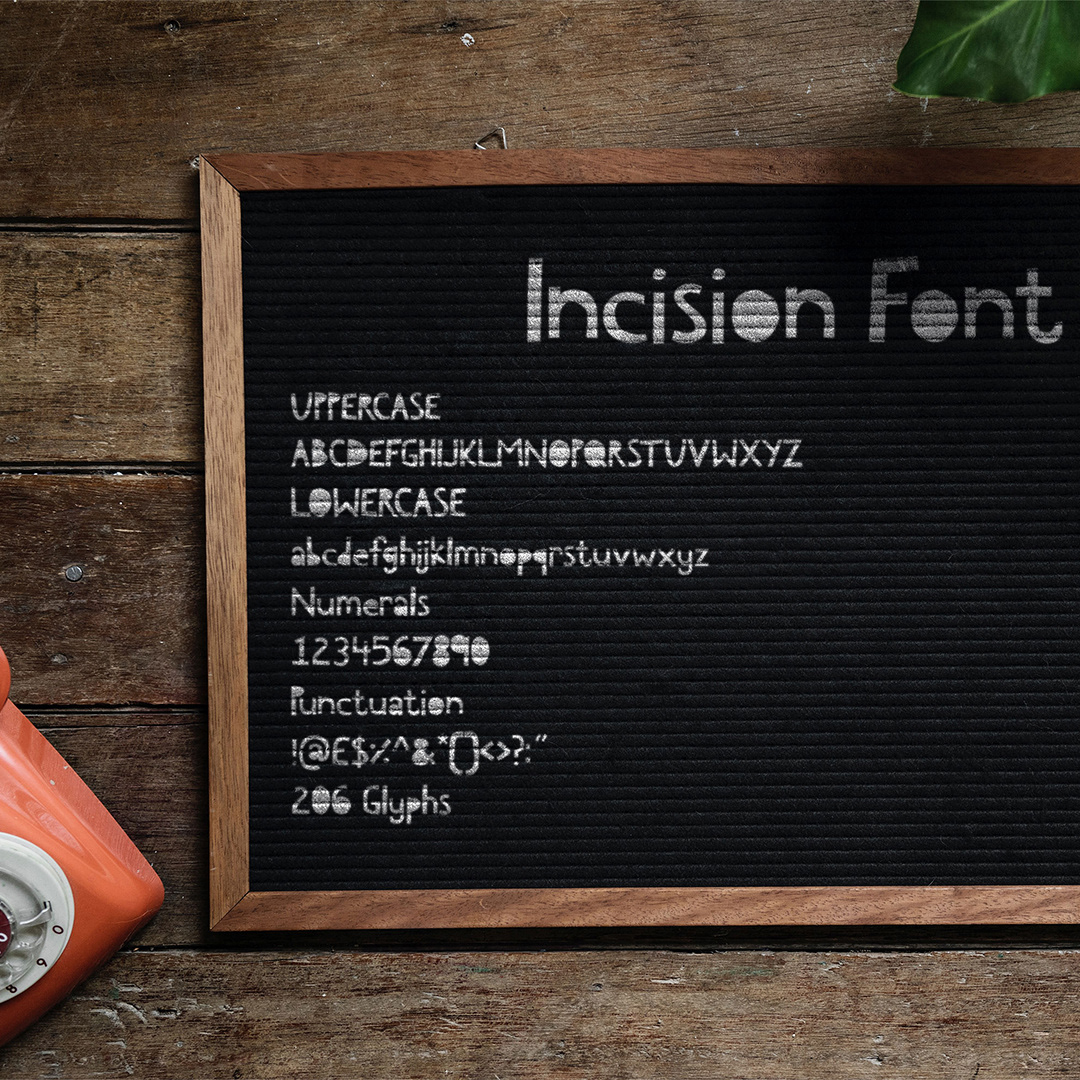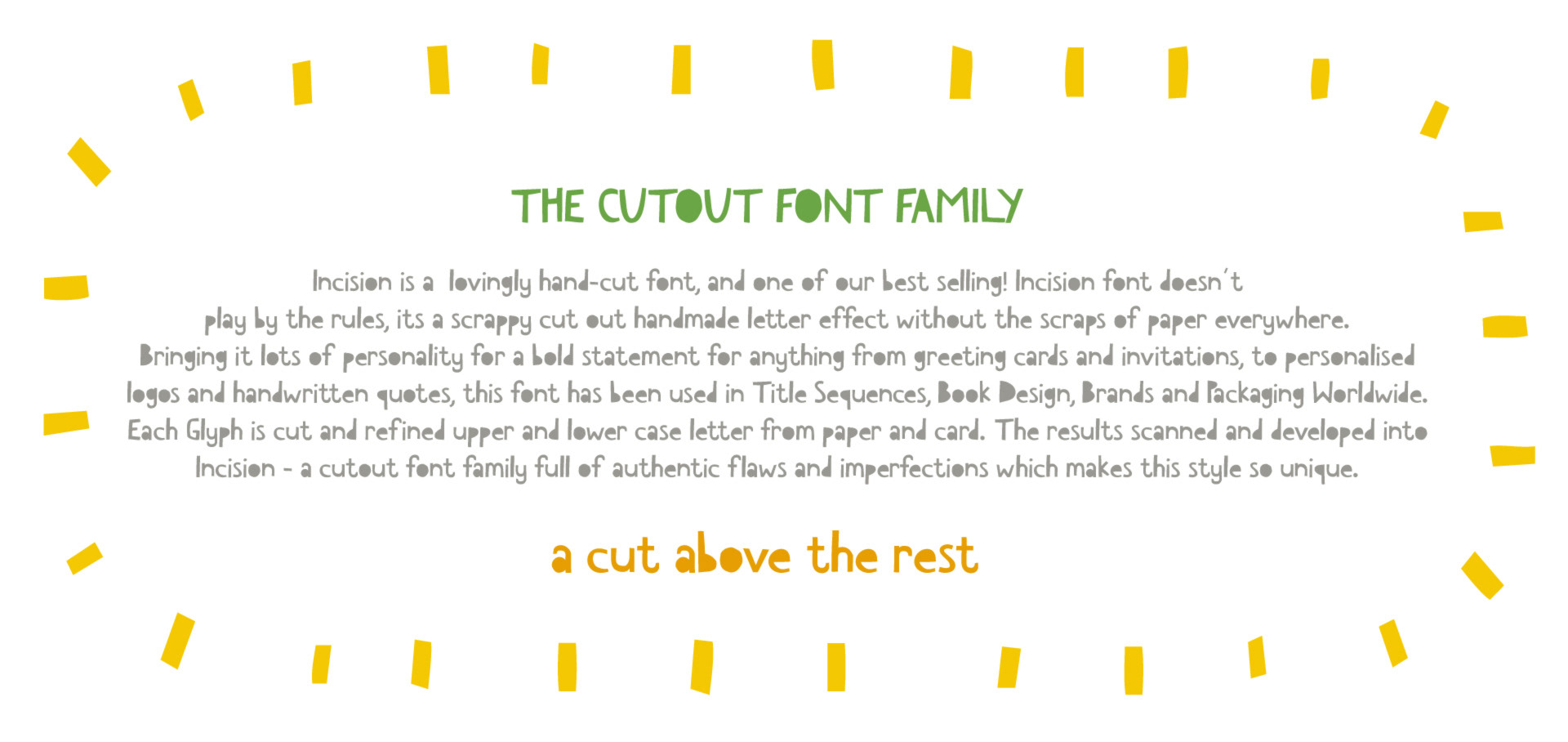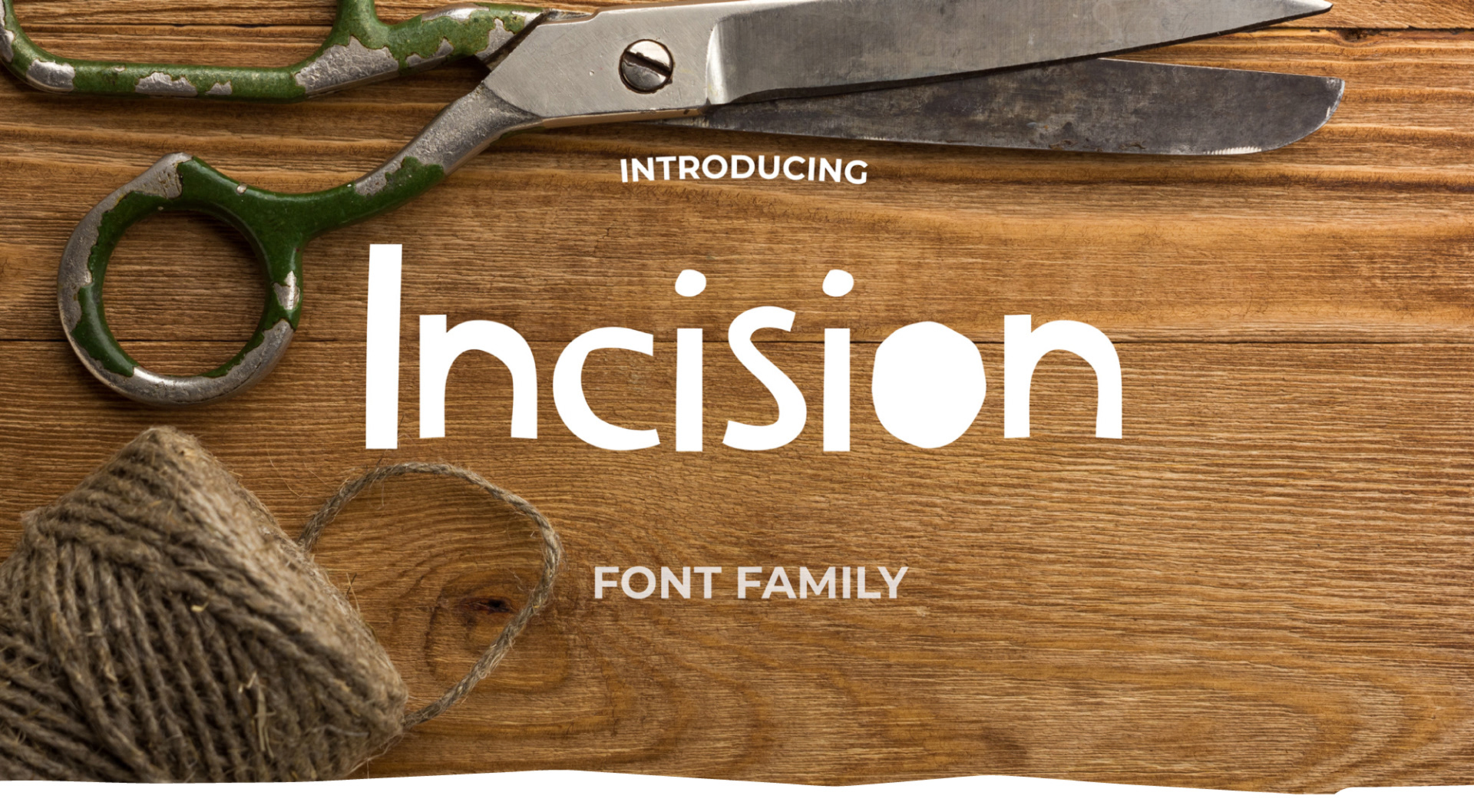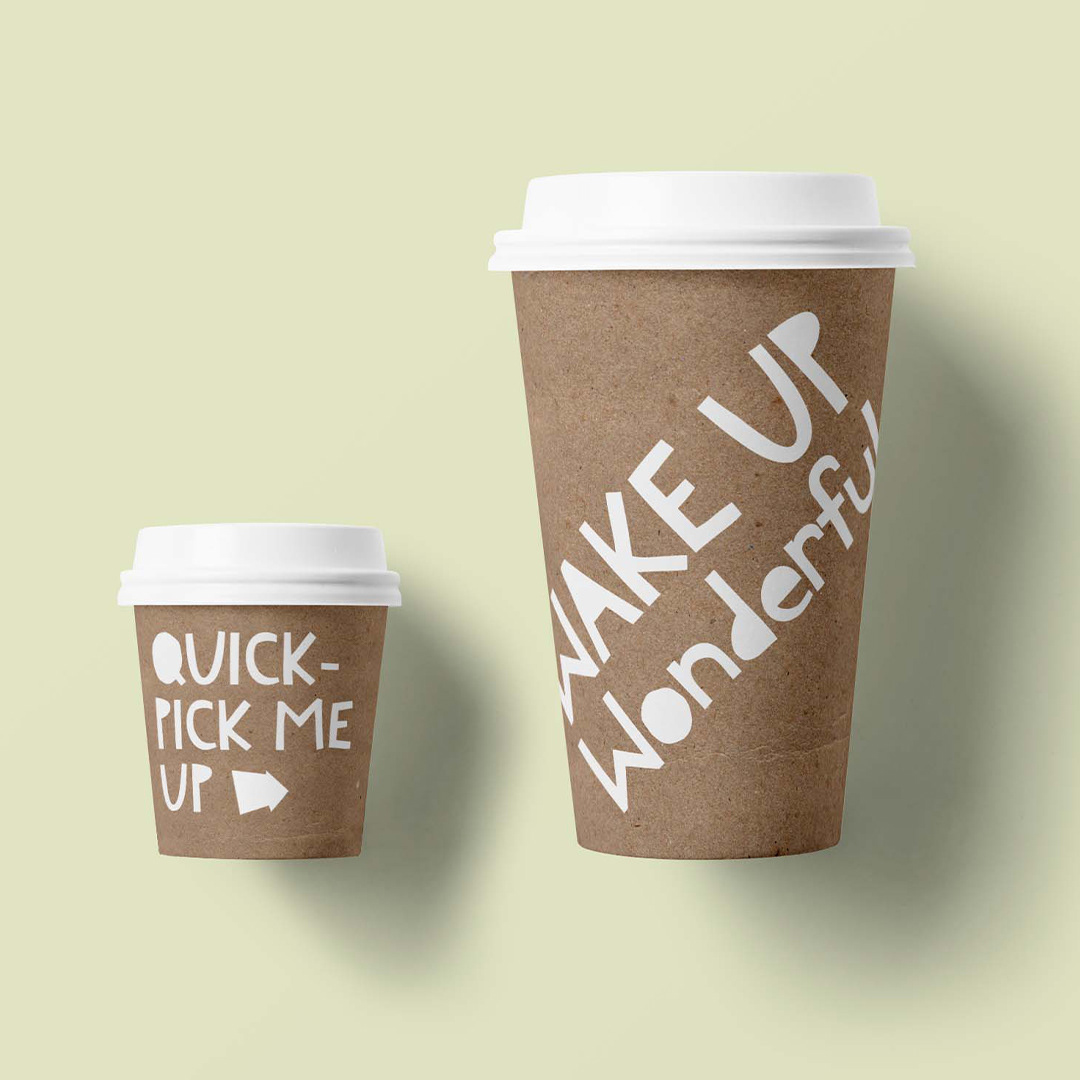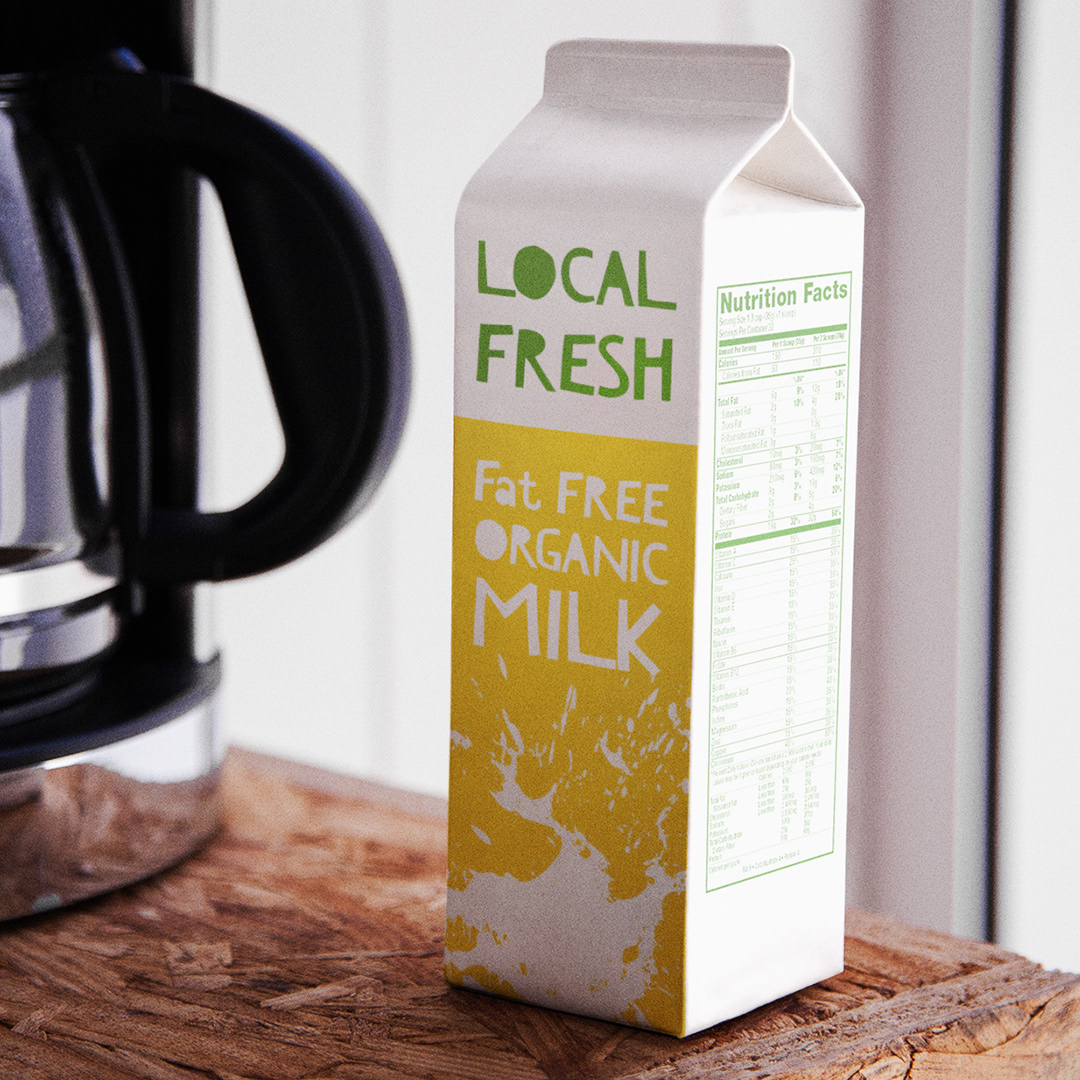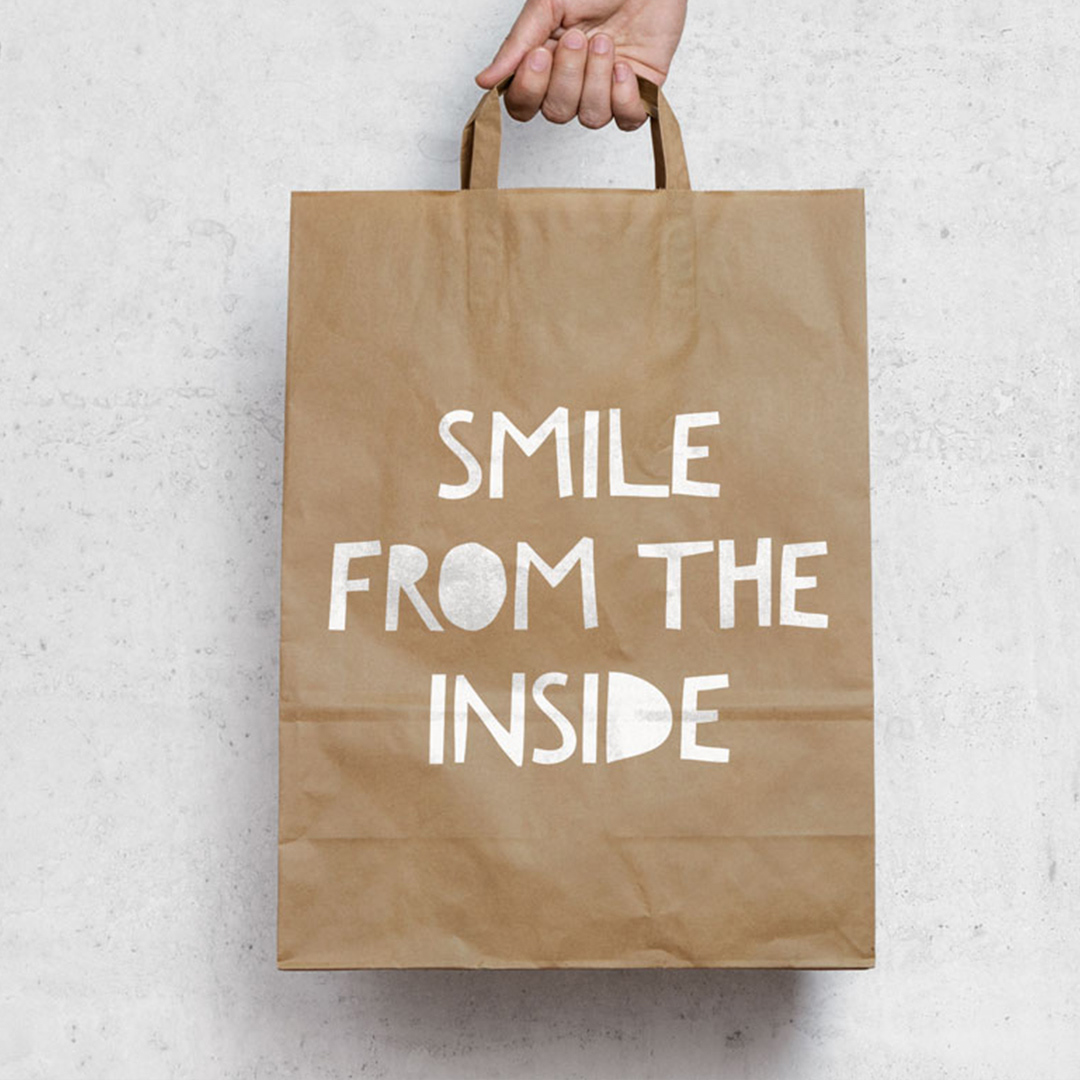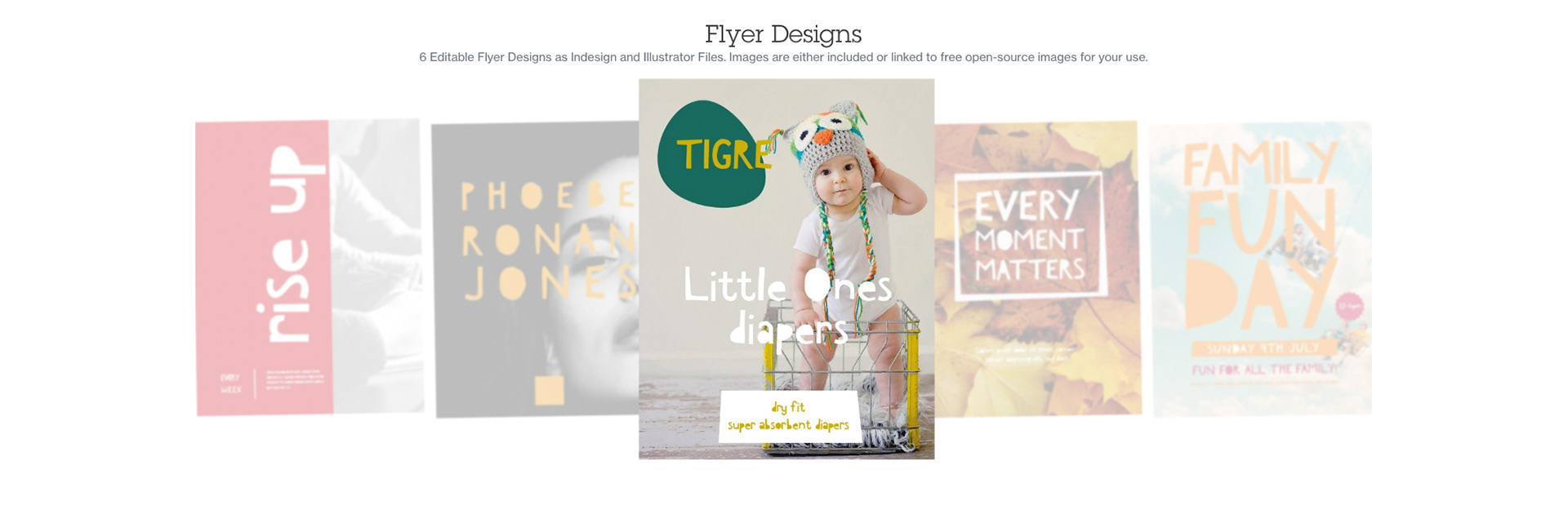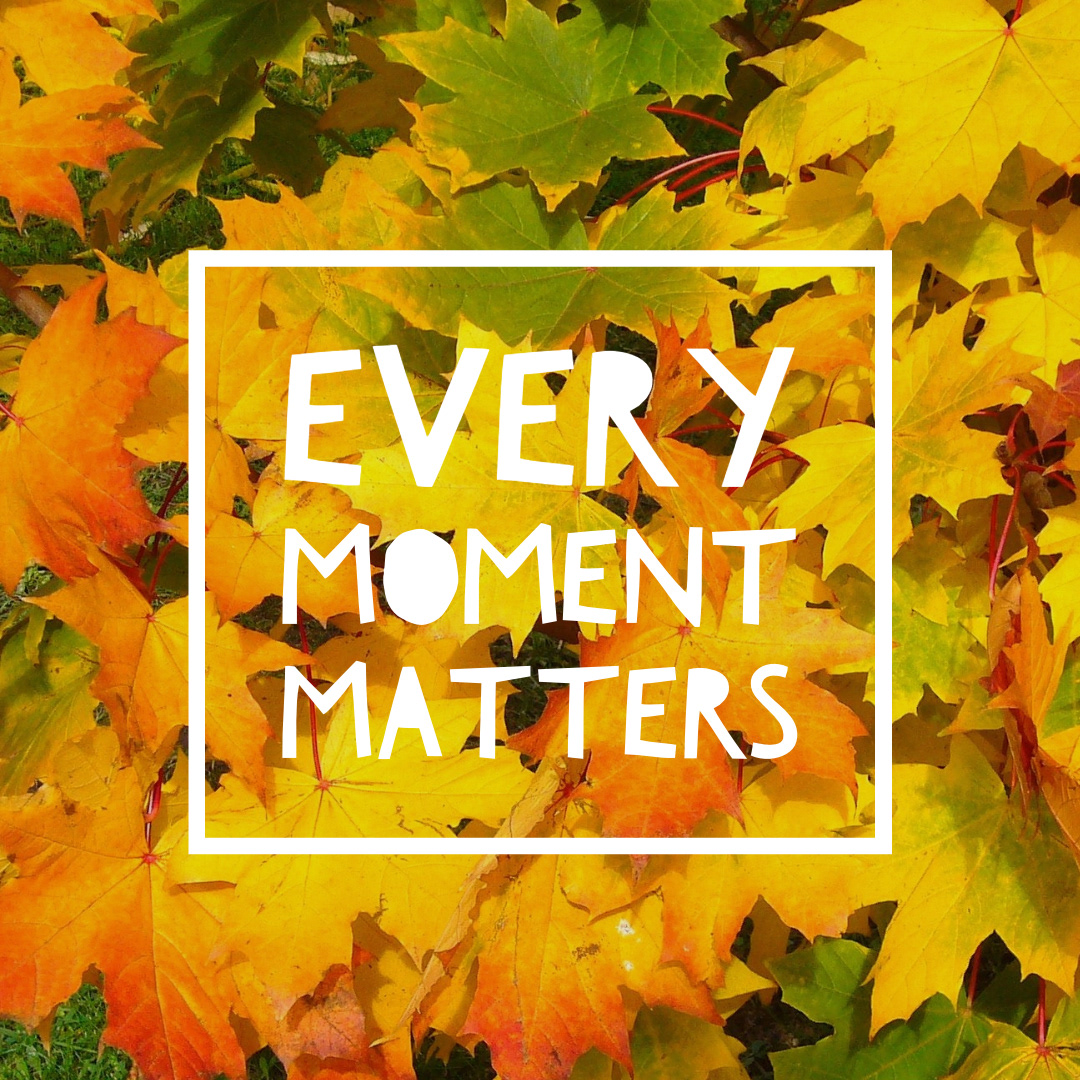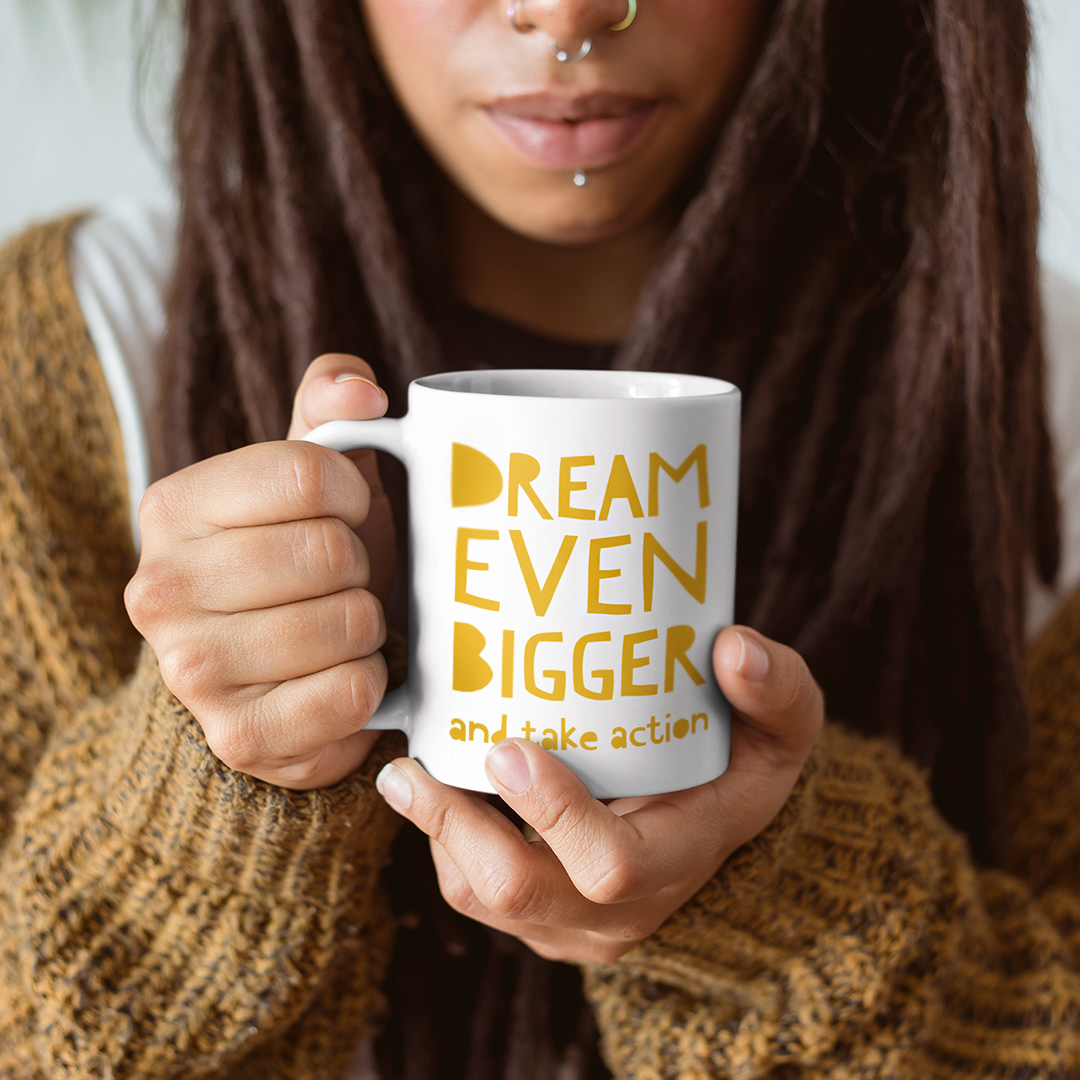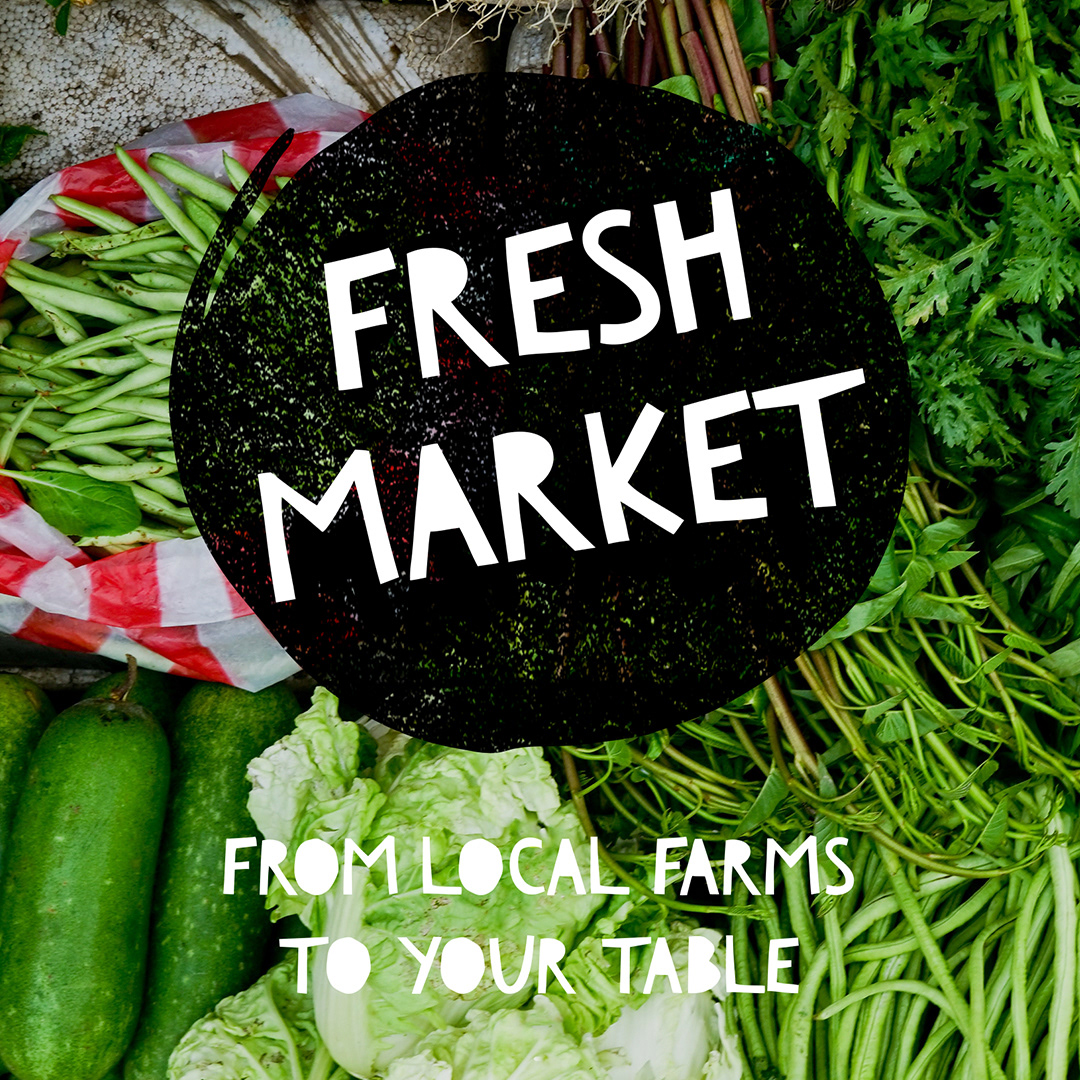
Each Glyph is cut and refined upper and lower case letter from paper and card. The results scanned and developed into Incision – a cutout font family full of authentic flaws and imperfections which makes this style so unique.
Incision is a lovingly hand-cut font, and one of our best selling! The Incision font doesn’t play by the rules, its a scrappy cut out handmade letter effect without the scraps of paper everywhere. Bringing with it lots of personality for a bold statement for anything from greeting cards and invitations, to personalised logos and handwritten quotes, this font has been used in Title Sequences, Book Design, Brands and Packaging Worldwide. Each Glyph is cut and refined upper and lower case letter from paper and card. The results scanned and developed into Incision – a cutout font family full of authentic flaws and imperfections which makes this style so unique. Great for use as headings, banners, labels and for a bold statement. Both upper and lowercase letters are included in this font style, along with Alternates and even a range of cutout shapes, all with over 350 glyphs. Included in this pack is a range of editable designed templates using the font for your use.